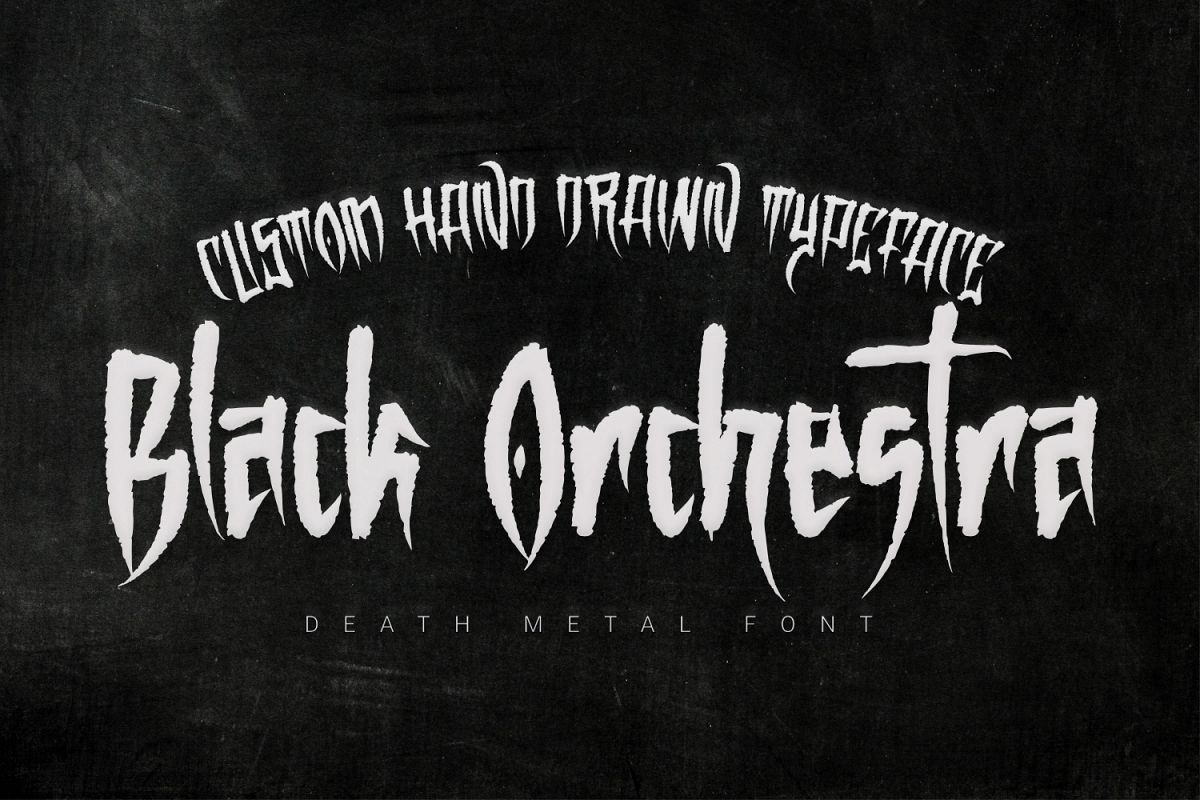
Black Orchestra
‘Black Orchestra’ is a black letter font inspired by heavy metal. This font consists of uppercase and lowercase and is supported by ‘Latin extended’ which allows wider use of this font. This font will turn any horror project into a standout!